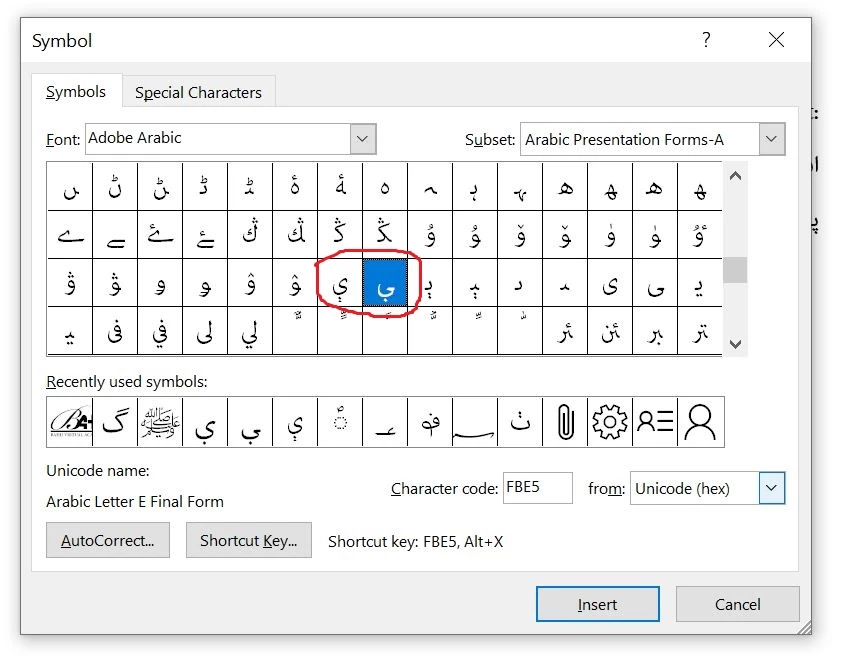
Problem in Adobe Arabic font for Pashto languge
i am facing a problem using Adobe Arabic font for Pashto language, if you could please solve this problem in this font.
the two Arabic letter E final form ې and Arabic letter E ې isolated form do not show the below dots completely.
as a professional and beautiful font it is a big broblem in our language. Please take a look to this proble and if possible please update this font.
The highlited are the final form of Arabic E (ې) and iseloted form, but you may see they don't have full dots below!
you may also check this problem in Microsoft word symbols: